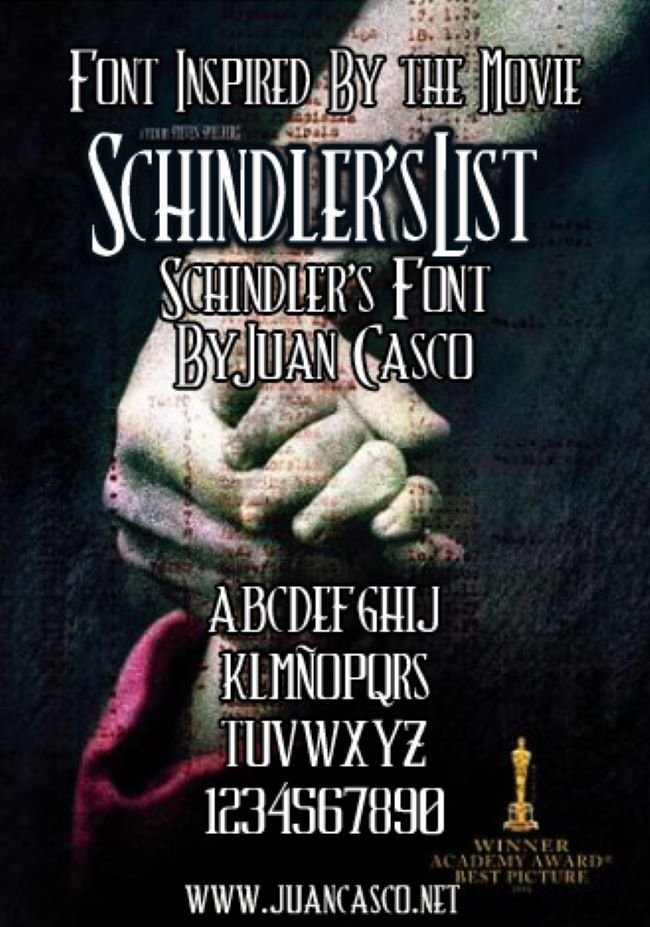
Schindler's List Font
Schindler’s List font speaks in whispers rather than shouts — and that restraint is everything. Unlike the bold, aggressive lettering of action or thriller films, the refined serif typography of Steven Spielberg’s 1993 masterpiece is deliberate in its dignity. The fan-made Schindler’s Font by Juan Casco captures that same classical composure, offering designers a typeface that carries genuine historical and emotional gravity.
Its understated elegance makes it far more versatile than it might first appear — well-suited for memorial projects, historical documentaries, tribute posters, editorial design, or any work that needs to convey solemnity and authenticity without resorting to visual noise. In a world full of typefaces that demand attention, this one earns it quietly — which is precisely what makes it so powerful and enduring across decades of design.